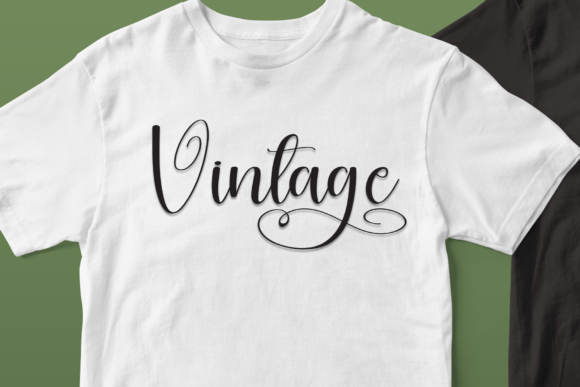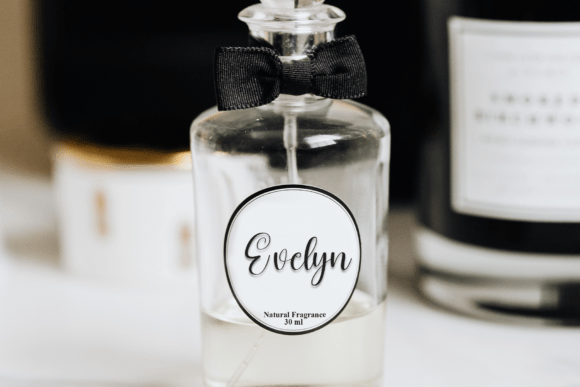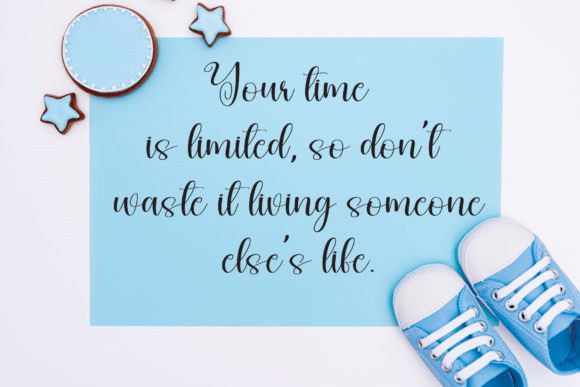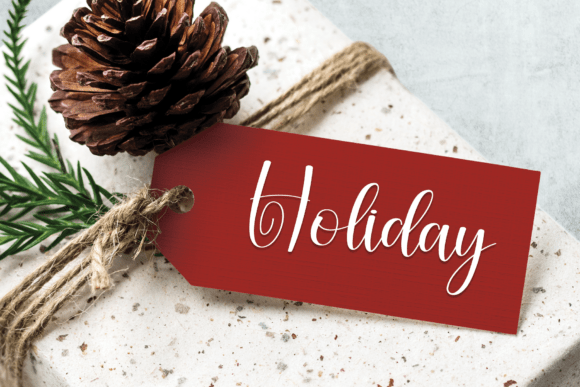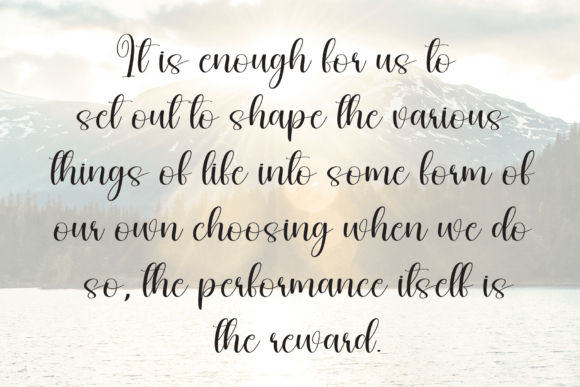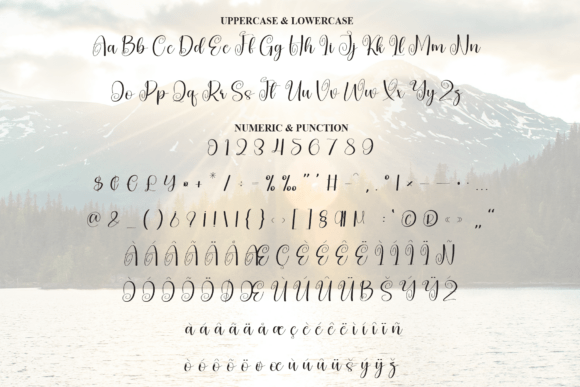
The Elusive Perfect Font: My Journey with Brighten
I still remember the design project that led me to discover Brighten, a stunning script font that has since become a staple in my toolkit. I was working on a wedding invitation suite for a client who wanted something elegant, yet modern. I had spent hours browsing through font libraries, but nothing seemed quite right. That was until I stumbled upon Brighten, with its flowing curves and gracious strokes. It was love at first sight! 💕
An Honest Review of Brighten
- 💫 Elegant and sophisticated, perfect for wedding invitations, branding, and stylish stationery
- ✅ Fluid curves and gracious strokes that give it a unique, handwritten feel
- 🎨 Highly versatile, suitable for a wide range of design projects, from romantic to sophisticated
- 📸 Works beautifully in both digital and print formats
While Brighten is an exceptional font, it’s not without its quirks. For instance:
- 🤔 Some users may find the font a bit too ornate for very casual or playful projects
- ⚠️ As with many script fonts, it may not be the best choice for very long blocks of text
The Story Behind Brighten
Brighten was designed with the intention of capturing the essence of handwritten calligraphy in a digital format. Inspired by the flowing curves and gracious strokes of traditional calligraphy, the designer aimed to create a font that would bring a touch of elegance and sophistication to any design project. 💫
Q: What makes Brighten unique?
A: Brighten’s unique blend of elegance and modernity sets it apart from other script fonts. Its fluid curves and gracious strokes give it a distinctive, handwritten feel.
Q: Is Brighten suitable for body text?
A: While Brighten is an exceptional font, it’s best suited for headlines, titles, and short blocks of text. For longer passages, a more traditional serif or sans-serif font may be more readable.